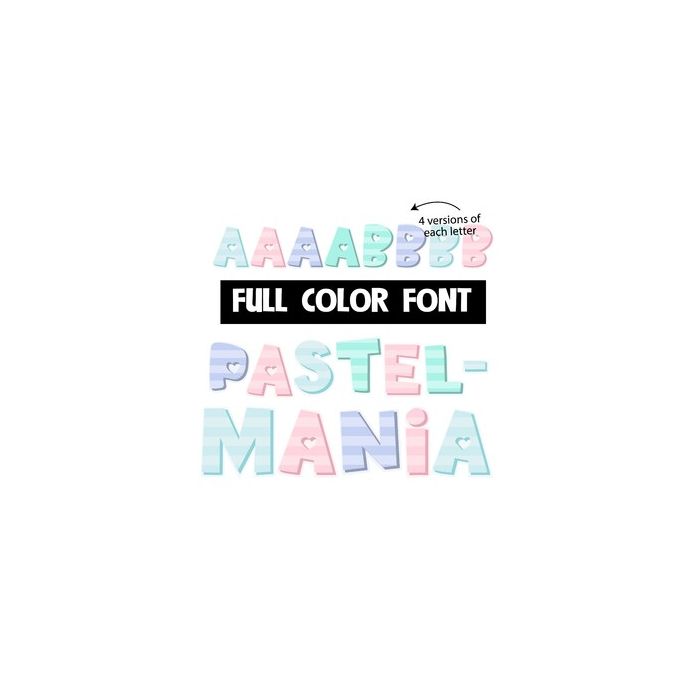
This full-color font features pale stripes in pastel colors. There is an alt version upper and lowercase that you can access through Silhouette's glyph map.